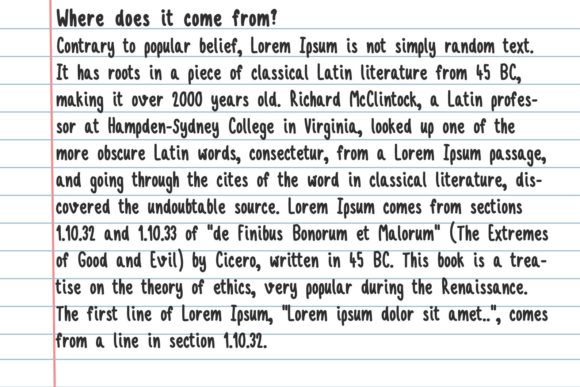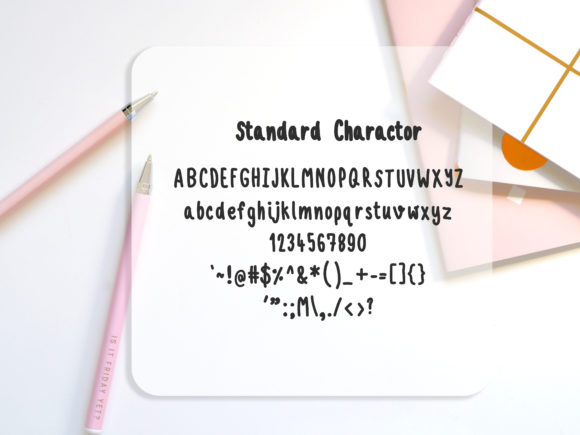
Milkshake Font
About Milkshake Font
Milkshake is a cute and natural handwritten font. Its natural and unique style makes it incredibly fitting to a large pool of designs. The only limit is your imagination!